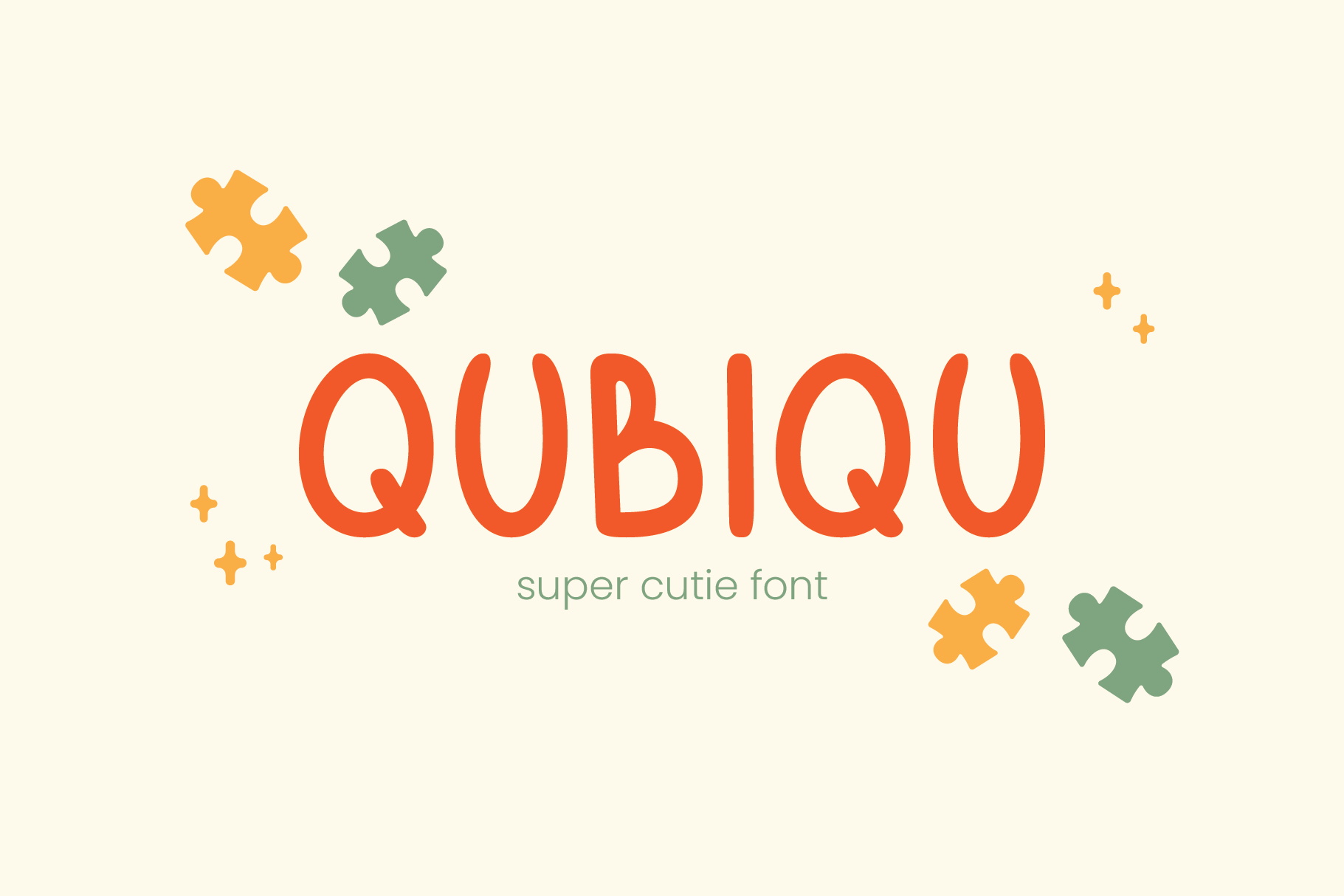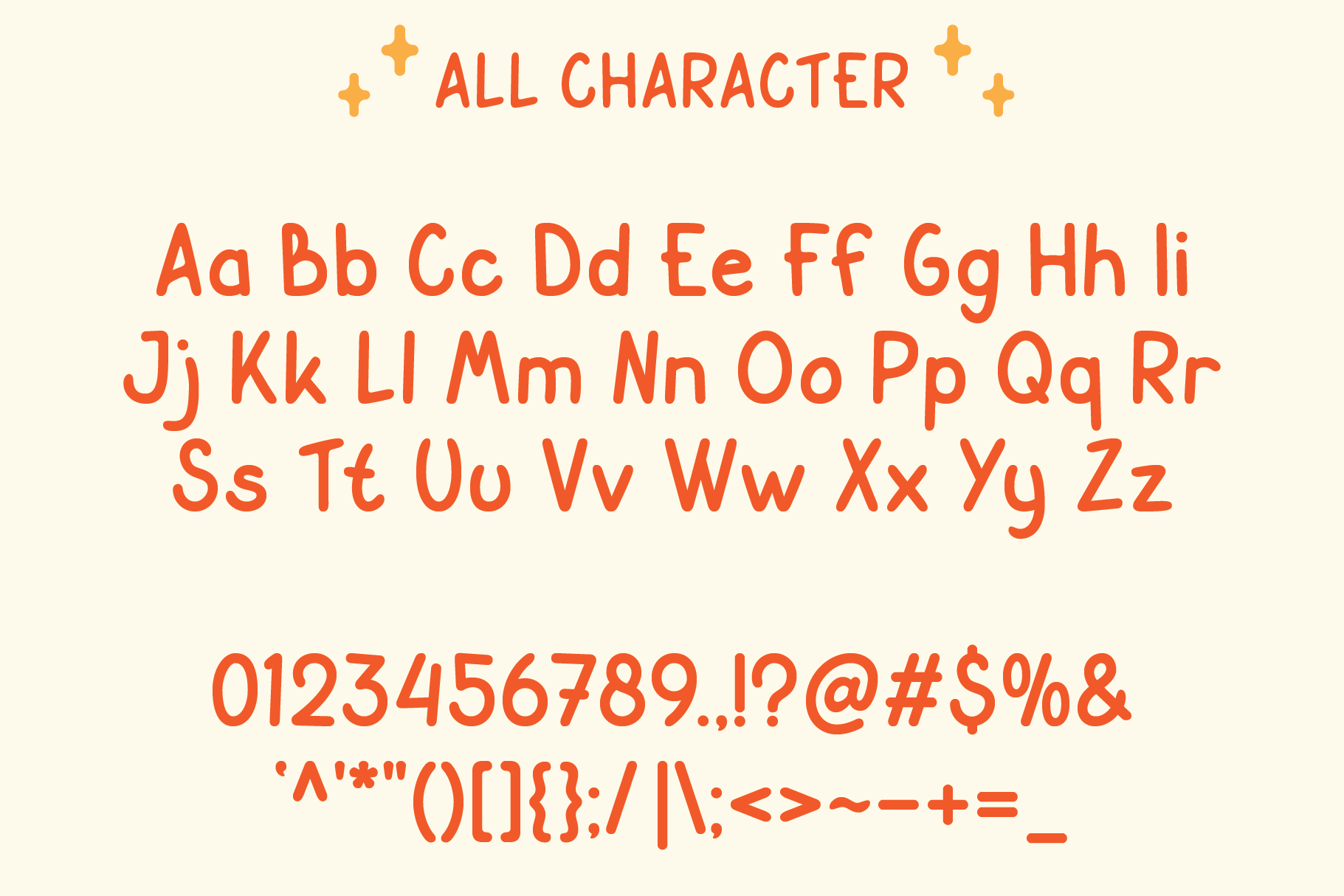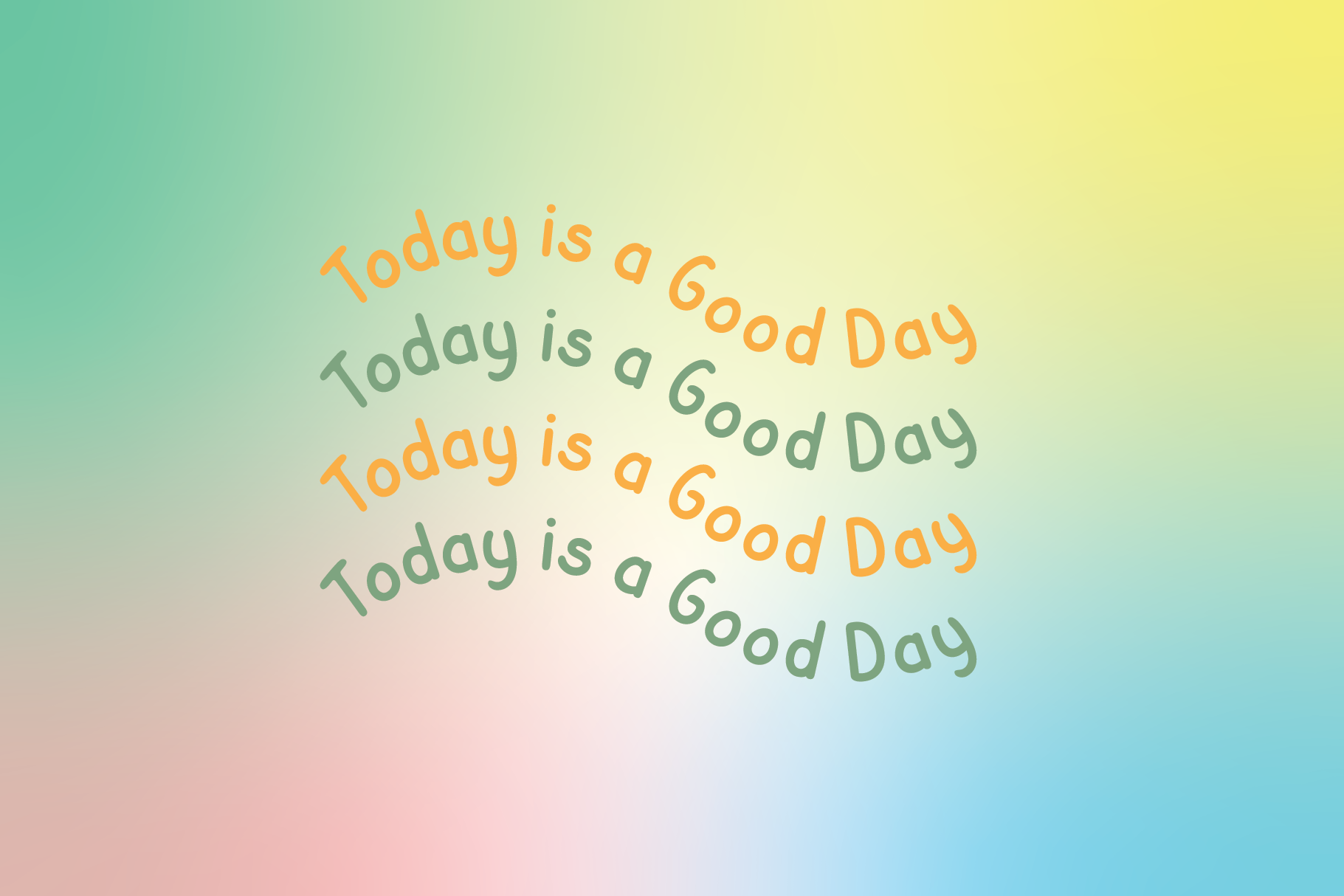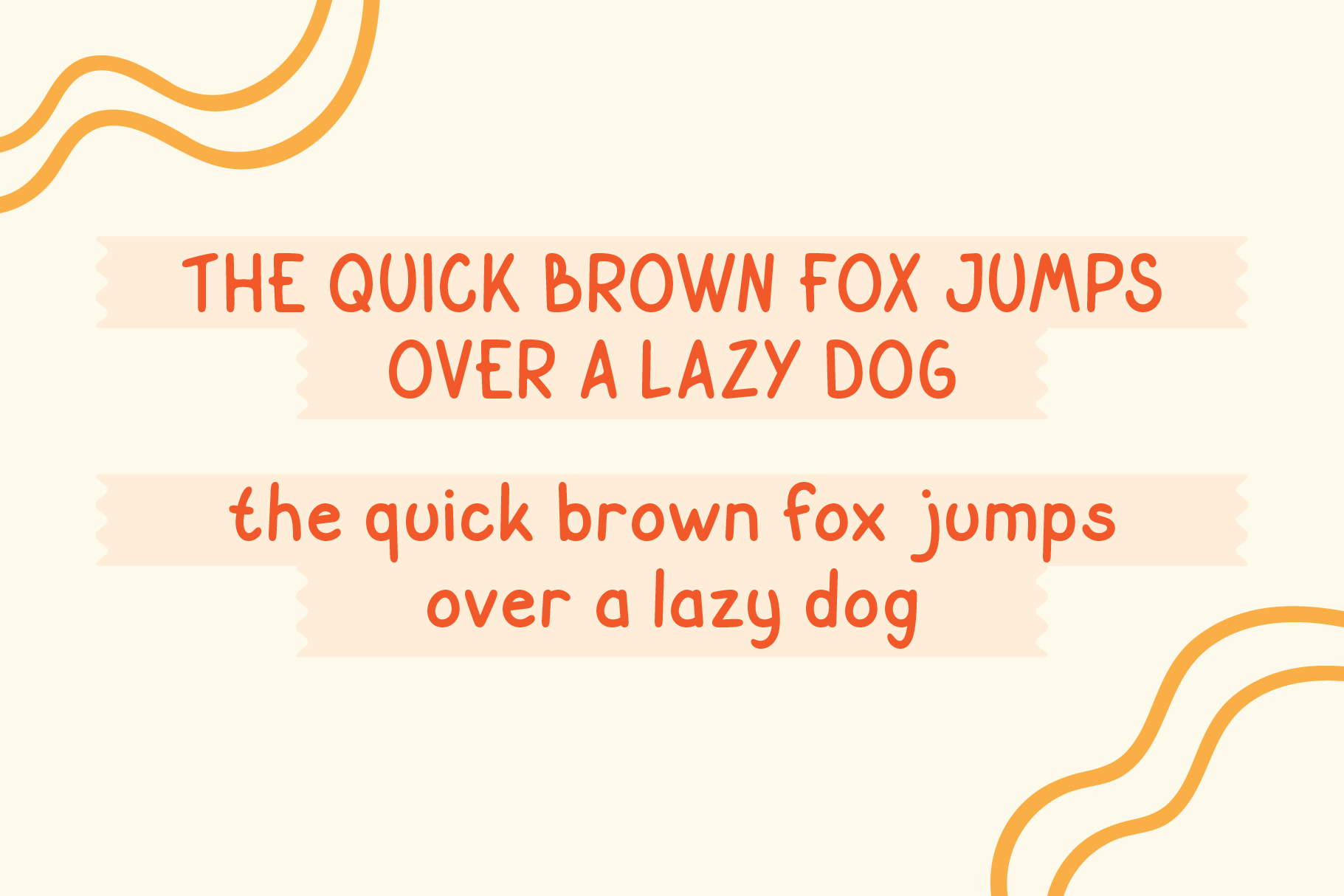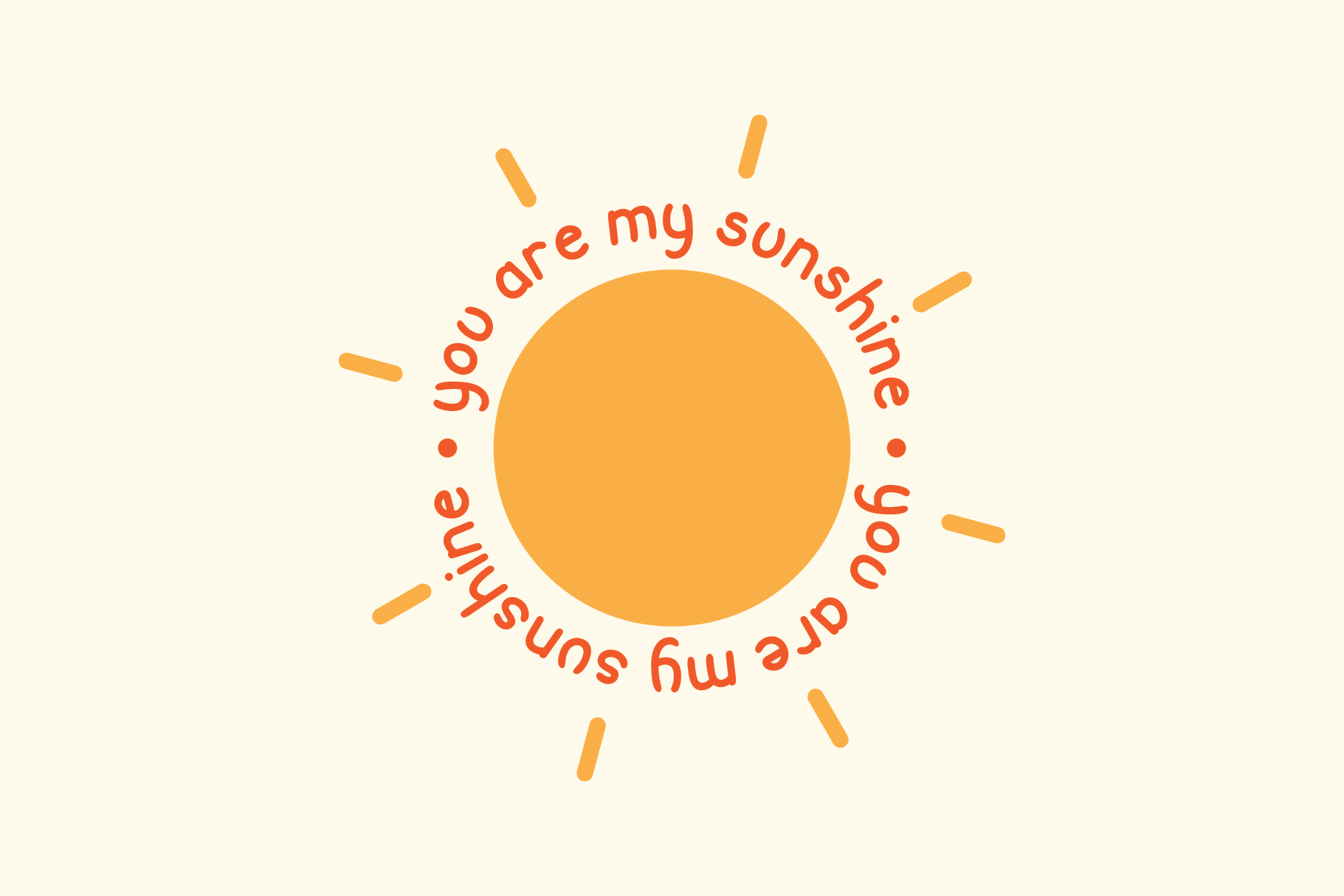
Qubiqu is a bubbly, round, and cheerful font that brings joy to any design! With its hand-drawn, playful style, this font is perfect for projects that need a light-hearted and fun touch. Whether you’re designing for children’s books, toy packaging, baby apparel, posters, or inspiring quotes, Qubiqu’s friendly letterforms will capture the attention and hearts of your audience.
Featuring both uppercase and lowercase letters, numbers, and basic punctuation, Qubiqu is versatile and ideal for a wide range of creative projects. Available in TTF, OTF, and WOFF formats, this font is ready to bring a smile to your designs across both print and digital platforms.